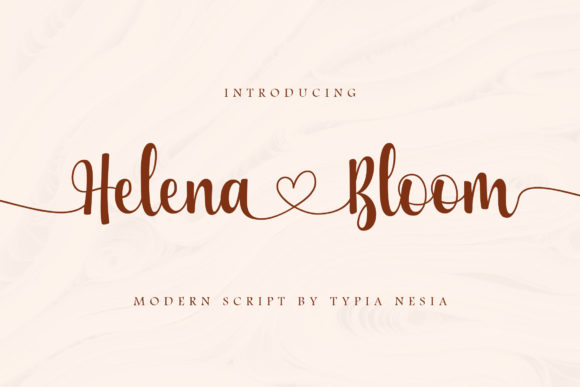
Helena Bloom: A Font That Captures the Essence of Romance and Personalization
In a world where digital communication often feels impersonal, there's something undeniably charming about the handwritten touch. Enter Helena Bloom, a romantic and delicate handwritten font that brings warmth and personality to any design project. With its unique heart-shaped ornaments and dainty style, this font is more than just a typographic choice—it’s a statement of love, care, and creativity.
The Art of Handwritten Typography in Modern Design
Handwritten fonts have been making a significant comeback in recent years, especially in areas that value authenticity and emotional connection. Helena Bloom stands out with its gentle curves, soft edges, and ornamental hearts that evoke feelings of joy and tenderness. This font is not only visually appealing but also deeply meaningful, making it an excellent choice for projects that require a personal and heartfelt message.
Designers and creators are increasingly turning to handwritten fonts to differentiate their work in a crowded digital landscape. Whether it's for wedding invitations, greeting cards, or branding materials, Helena Bloom adds a layer of intimacy that standard sans-serif or serif fonts simply can't replicate.
Why Helena Bloom Is Perfect for Romantic Occasions
Wedding invitations are one of the most common uses for Helena Bloom. The font's delicate appearance and heart motifs make it ideal for conveying the excitement and emotion of a new beginning. Imagine sending out invitations that not only inform guests of the event but also reflect the couple's love story—this is exactly what Helena Bloom enables.
But the use of this font isn't limited to weddings alone. It's equally well-suited for birthday cards, thank-you notes, and even personalized stationery. Its versatility allows it to be adapted to various themes while maintaining its core charm and elegance.
Practical Applications and Real-World Examples
Consider a small business owner who wants to create a branded set of greeting cards for their customers. Using Helena Bloom could help them stand out from competitors by offering a more personal and thoughtful experience. Similarly, a blogger might use this font in their newsletter headers to add a warm, inviting feel that encourages reader engagement.
For professionals working in marketing or branding, incorporating Helena Bloom into promotional materials can help build stronger emotional connections with audiences. This is especially effective when targeting demographics that value authenticity and individuality, such as millennials and Gen Z.
Trends Driving the Popularity of Handwritten Fonts
The rise of minimalism in design has led many to seek out elements that add character without overwhelming the viewer. Helena Bloom fits perfectly within this trend, offering a subtle yet impactful visual element that enhances rather than distracts.
Additionally, the increasing demand for personalized experiences across industries—from e-commerce to content creation—has made custom typography more relevant than ever. Consumers today expect brands to understand their preferences and values, and using a font like Helena Bloom can signal a commitment to these ideals.
With the growing popularity of digital tools that allow for easy customization, designers can now experiment with different fonts and styles more freely. This has led to a surge in creative experimentation, with many opting for unique, handcrafted looks over traditional, mass-produced designs.
How to Incorporate Helena Bloom Into Your Projects
If you're looking to use Helena Bloom in your next project, start by considering the context. Will it be used for a formal document or a casual card? How much text will need to be included? These questions will help determine how best to apply the font effectively.
It's also important to pair Helena Bloom with complementary colors and layouts. For instance, using pastel tones alongside the font can enhance its soft and romantic appeal. On the other hand, bold colors may overpower the delicate nature of the font.
Another tip is to limit the use of Helena Bloom to key elements, such as headings or short phrases. This ensures that the font remains legible and doesn't become distracting. When used thoughtfully, it can elevate the overall aesthetic of any design.
The Future of Handwritten Fonts in Design
As technology continues to evolve, so too does the way we approach design. While digital tools offer incredible precision and efficiency, they also open up new possibilities for creative expression. Helena Bloom represents a bridge between the analog and digital worlds, allowing designers to infuse their work with the warmth and authenticity of handwriting.
Looking ahead, it's likely that we'll see even more innovation in the realm of customizable typography. As AI and machine learning continue to advance, we may soon have tools that can generate bespoke fonts tailored to individual preferences and needs. However, regardless of these developments, the human touch will always hold a special place in design.
Helena Bloom is more than just a font—it's a reflection of our desire for connection, creativity, and personalization in every aspect of life. Whether you're designing for a client, creating content for your audience, or simply expressing yourself through your work, this font offers a beautiful way to do so.